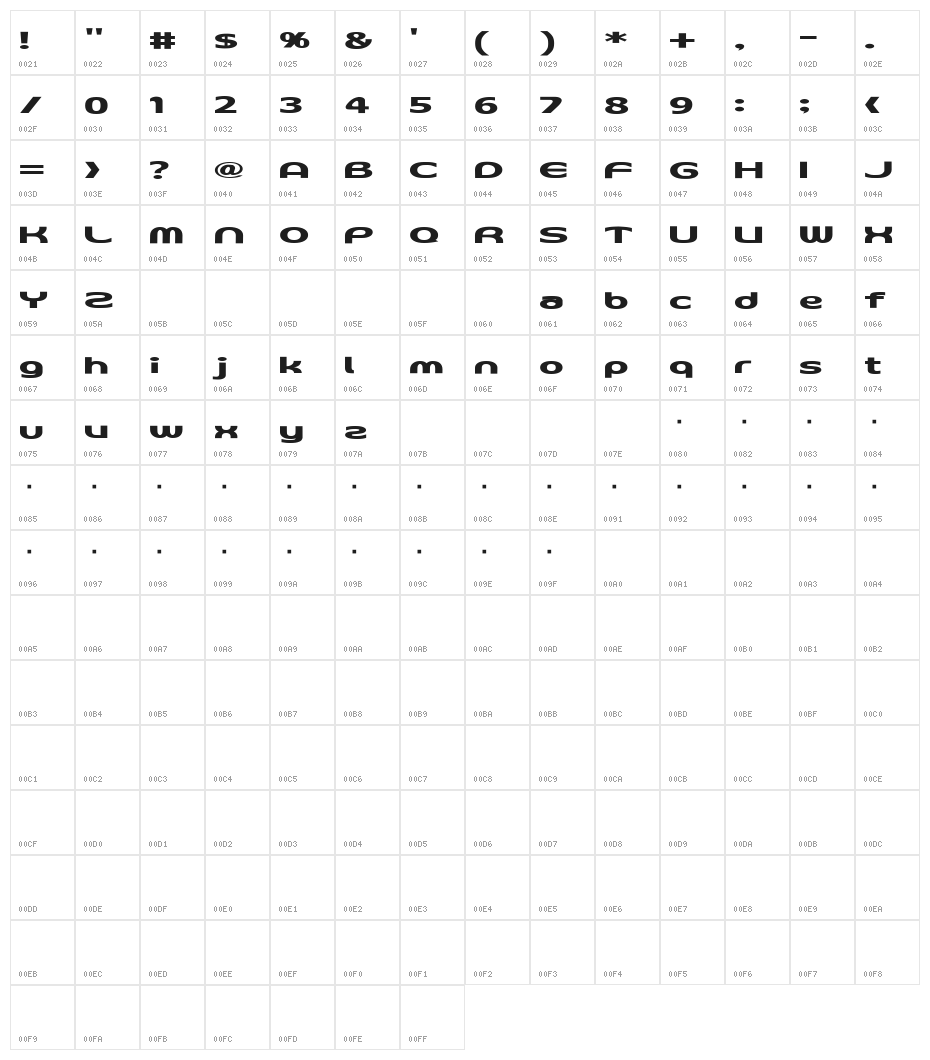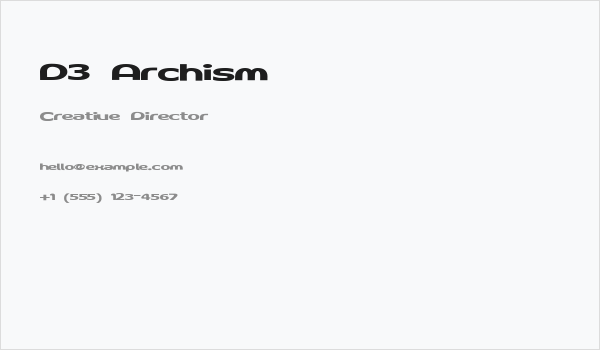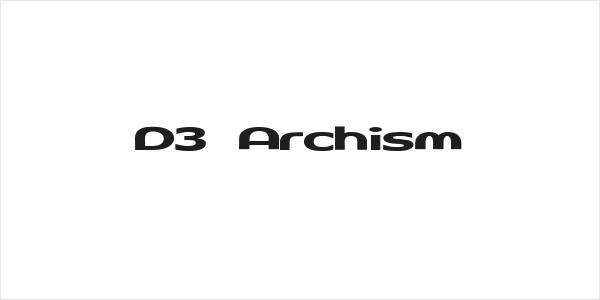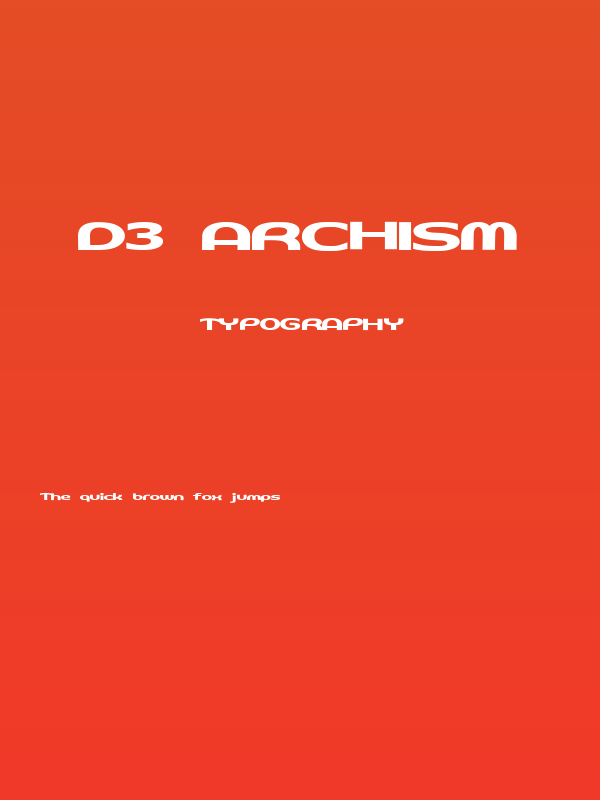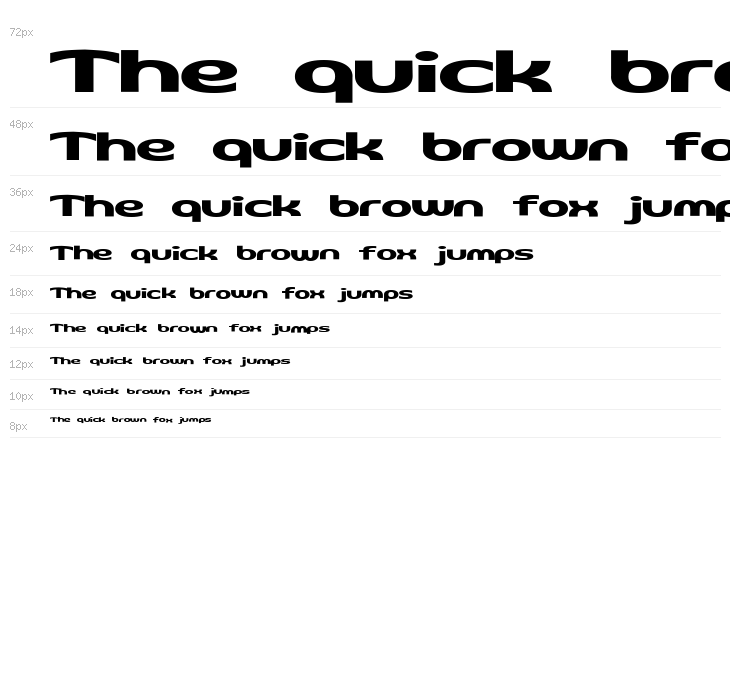
D3 Archism Font
D3 Archism Description
This font features a bold and futuristic design with a distinct geometric style. The characters are wide and have a strong presence, making them ideal for attention-grabbing headlines. The uppercase letters are particularly striking, with a unique blend of curves and straight lines that create a modern aesthetic. The lowercase letters maintain this style, offering a cohesive look across all text. Numbers and special characters are designed to match the boldness and geometric nature of the alphabet, ensuring consistency throughout. The font's style is both innovative and versatile, suitable for a variety of creative projects.
| Proposed Projects | Ideal for branding, advertising, posters, and any project requiring a modern and bold typeface. |